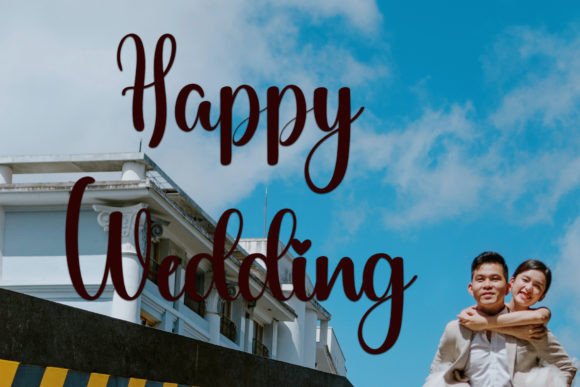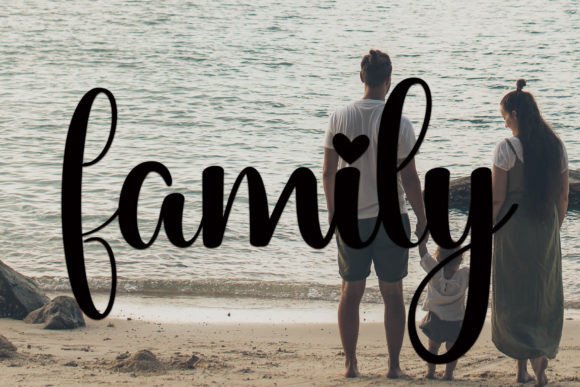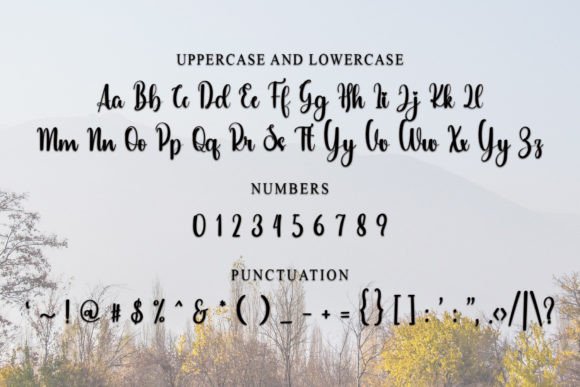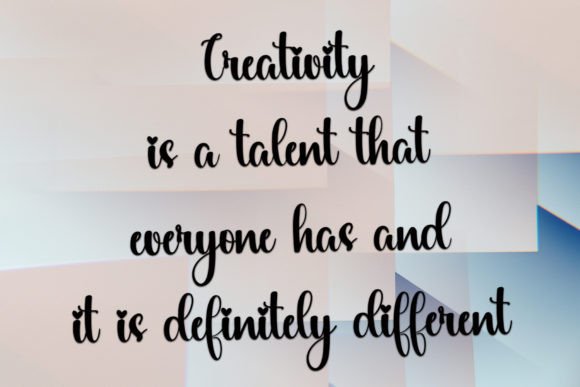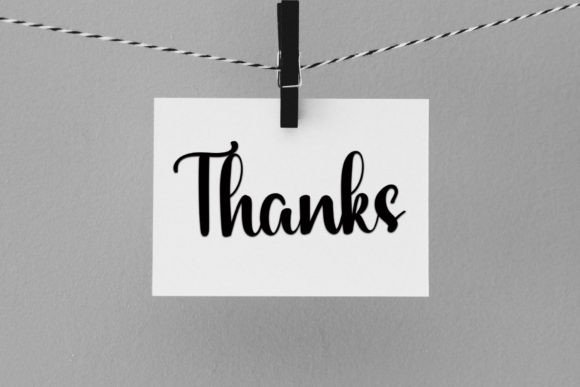
Introducing Building Font: Elevate Your Designs with Elegance and Timelessness
Are you on the lookout for a font that can add a touch of sophistication and elegance to your designs? Look no further than Building Font, a stunning handwritten font that is sure to capture your heart. With its unique and timeless style, Building Font is the perfect choice for designers and crafters who want to create spectacular designs that stand out from the crowd.
The Characteristics of Building Font
Building Font is a neat and beautiful handwritten font that boasts an elegant touch, making it perfect for a wide range of projects. Its incredibly distinct style is what sets it apart from other fonts, giving it a timeless quality that will never go out of fashion. Whether you’re working on a logo, branding materials, or any other design project, Building Font is sure to bring a level of sophistication and refinement that will elevate your work to new heights.
Why Choose Building Font?
So, why should you choose Building Font for your next design project? Here are just a few reasons why this font stands out:
- Elegant and Refined: Building Font has an undeniably elegant and refined quality that makes it perfect for designs that require a touch of sophistication.
- Unique and Distinct: With its incredibly distinct style, Building Font is sure to make your designs stand out from the crowd and leave a lasting impression.
- Timeless: Unlike trendy fonts that quickly go out of fashion, Building Font has a timeless quality that ensures your designs will remain stylish and relevant for years to come.
- Versatile: Building Font is a versatile font that can be used for a wide range of projects, from logos and branding materials to packaging and more.
How to Use Building Font in Your Designs
Using Building Font in your designs is easy and straightforward. Here are a few tips to help you get the most out of this beautiful font:
- Pair it with Other Fonts: Building Font pairs well with a variety of other fonts, so don’t be afraid to experiment and find the perfect combination for your design.
- Experiment with Sizes and Colors: Building Font looks great in a range of sizes and colors, so try experimenting to find the perfect look for your design.
- Use it for Headings and Titles: Building Font is perfect for headings and titles, where its elegant and refined quality can really shine.
Building Font is a perfect choice for designers and crafters who want to add a touch of elegance and sophistication to their work. Whether you’re working on a client project or creating something for your own portfolio, Building Font is sure to help you create designs that are both beautiful and effective.
In conclusion, Building Font is a stunning handwritten font that is sure to elevate your designs to new heights. With its elegant and refined quality, unique and distinct style, and timeless appeal, Building Font is the perfect choice for designers and crafters who want to create spectacular designs that stand out from the crowd. So why wait? Download Building Font today and start creating beautiful designs that will leave a lasting impression!